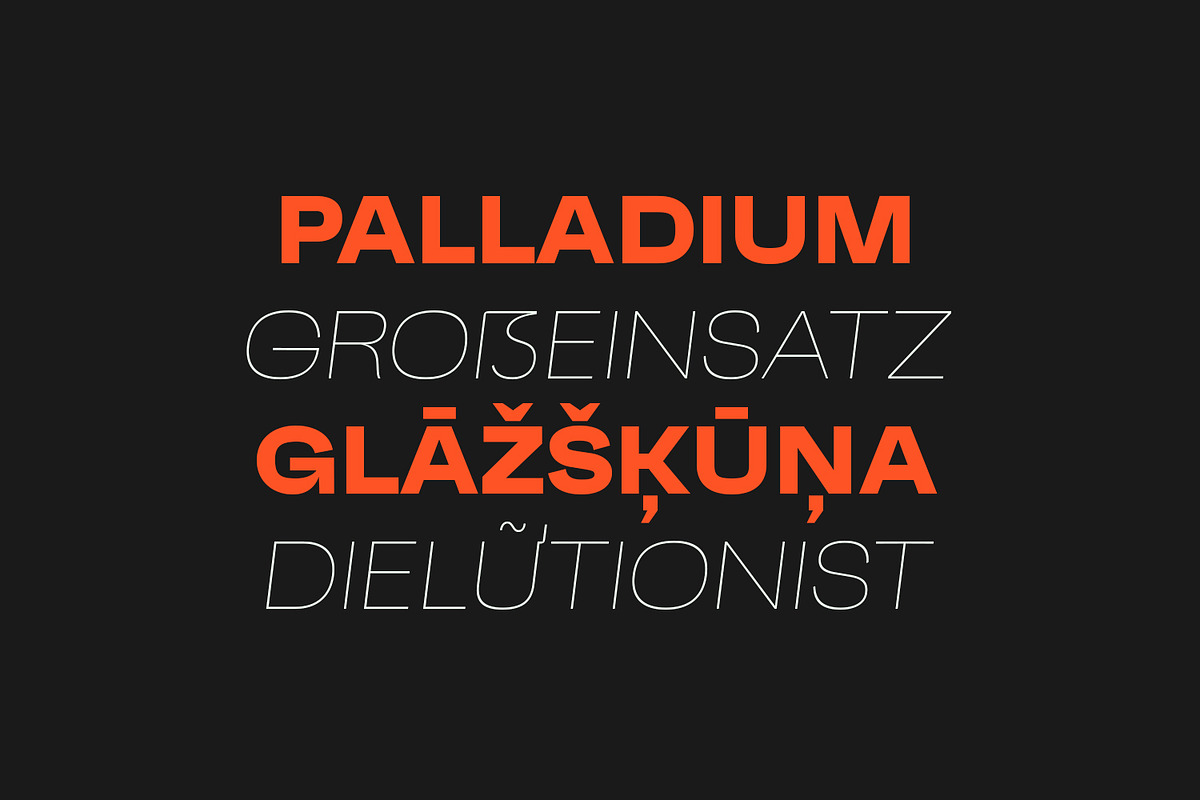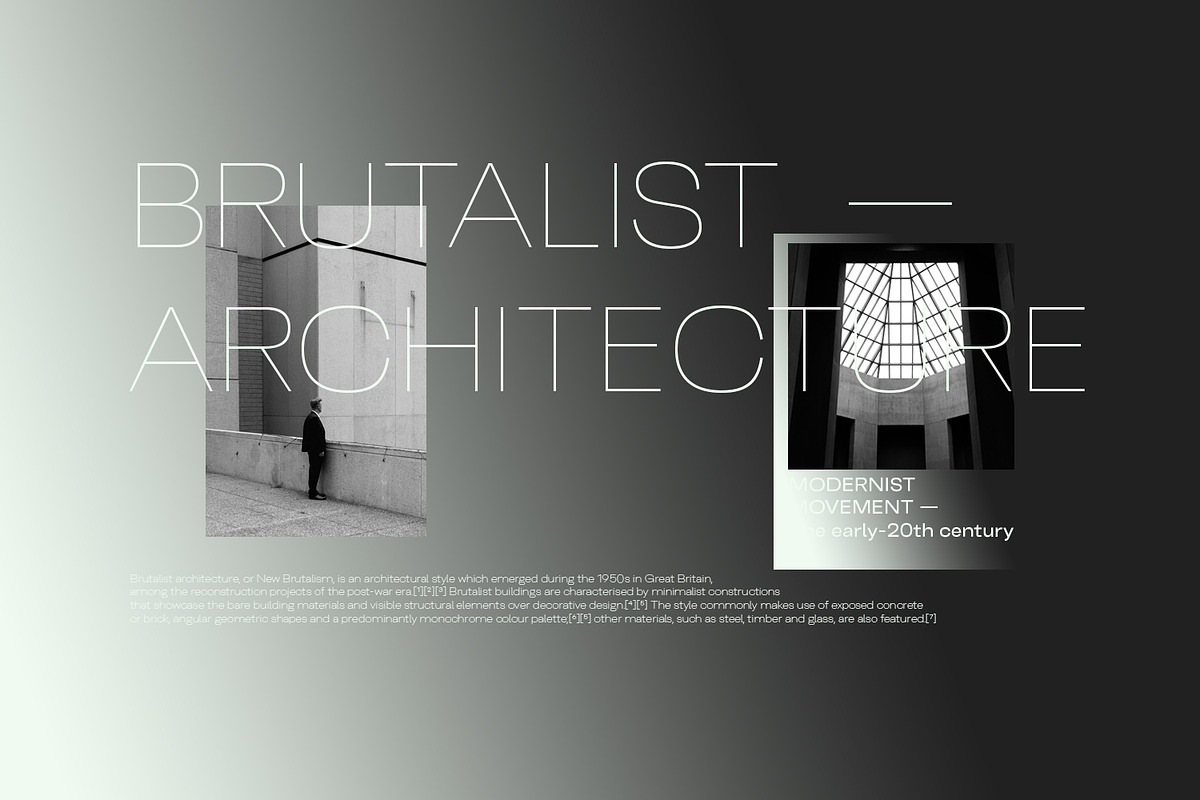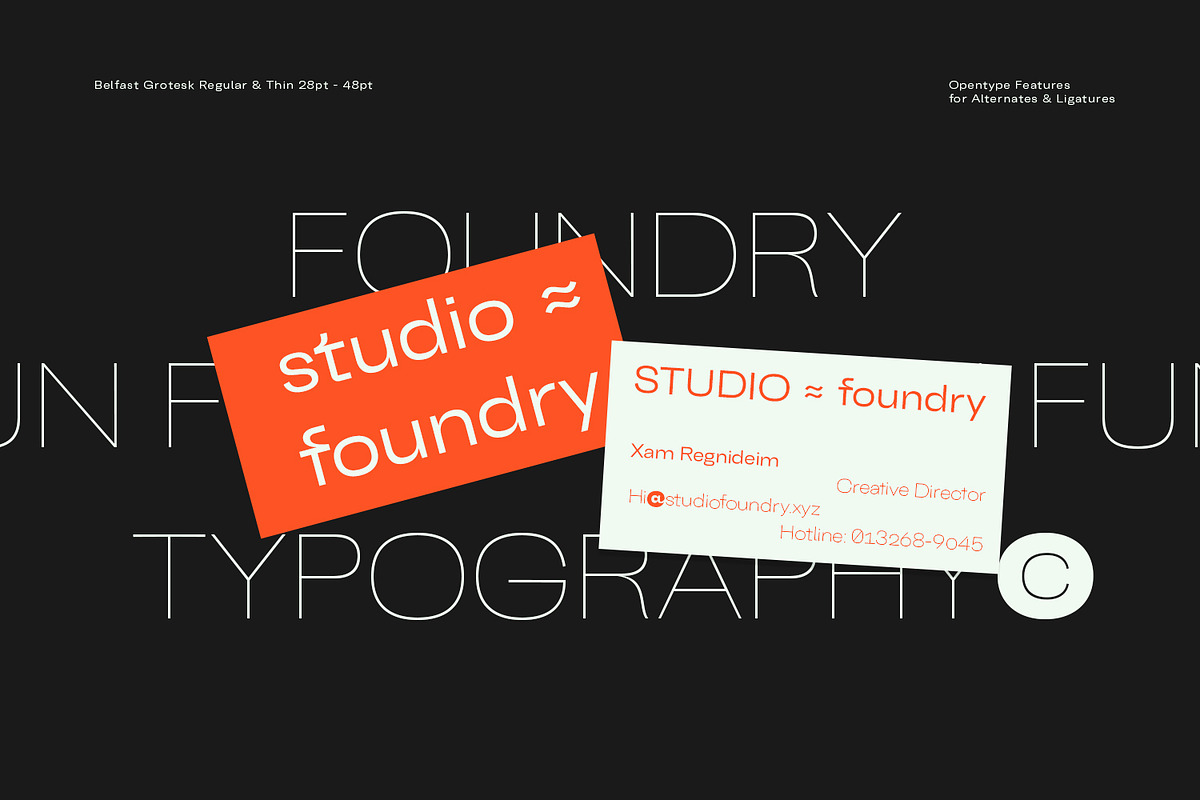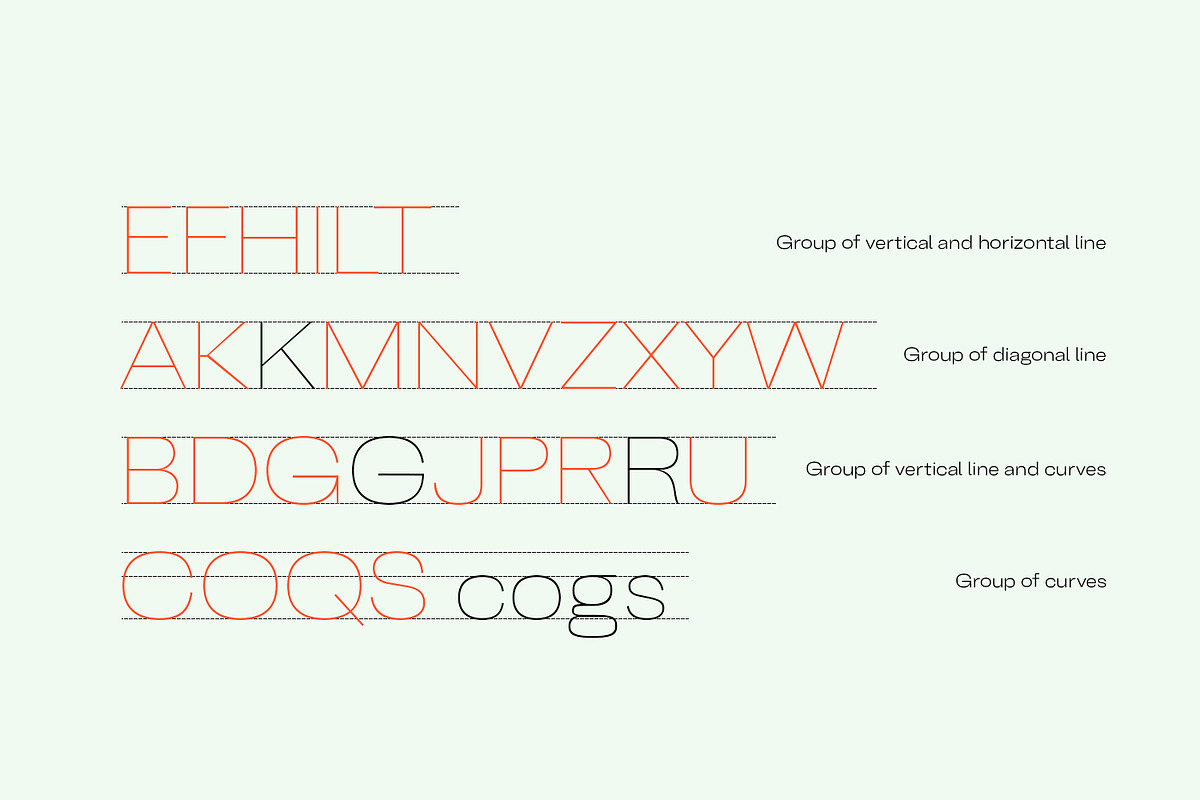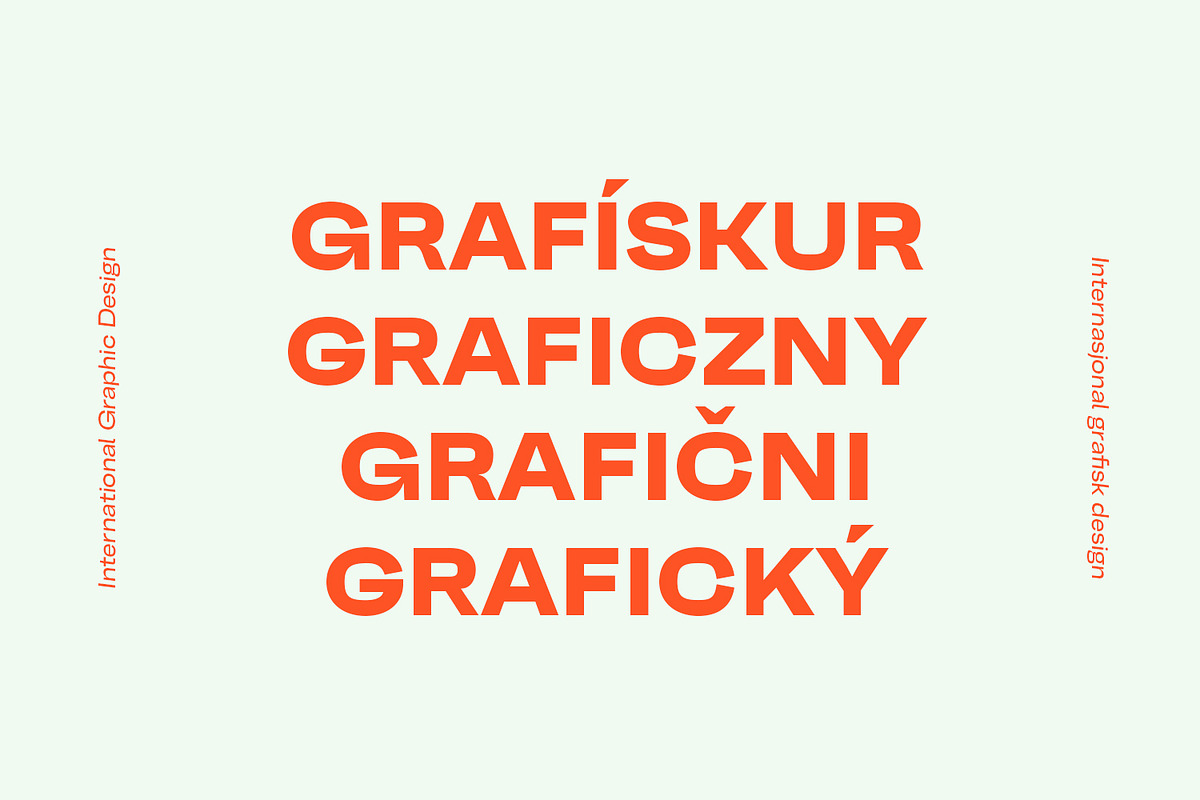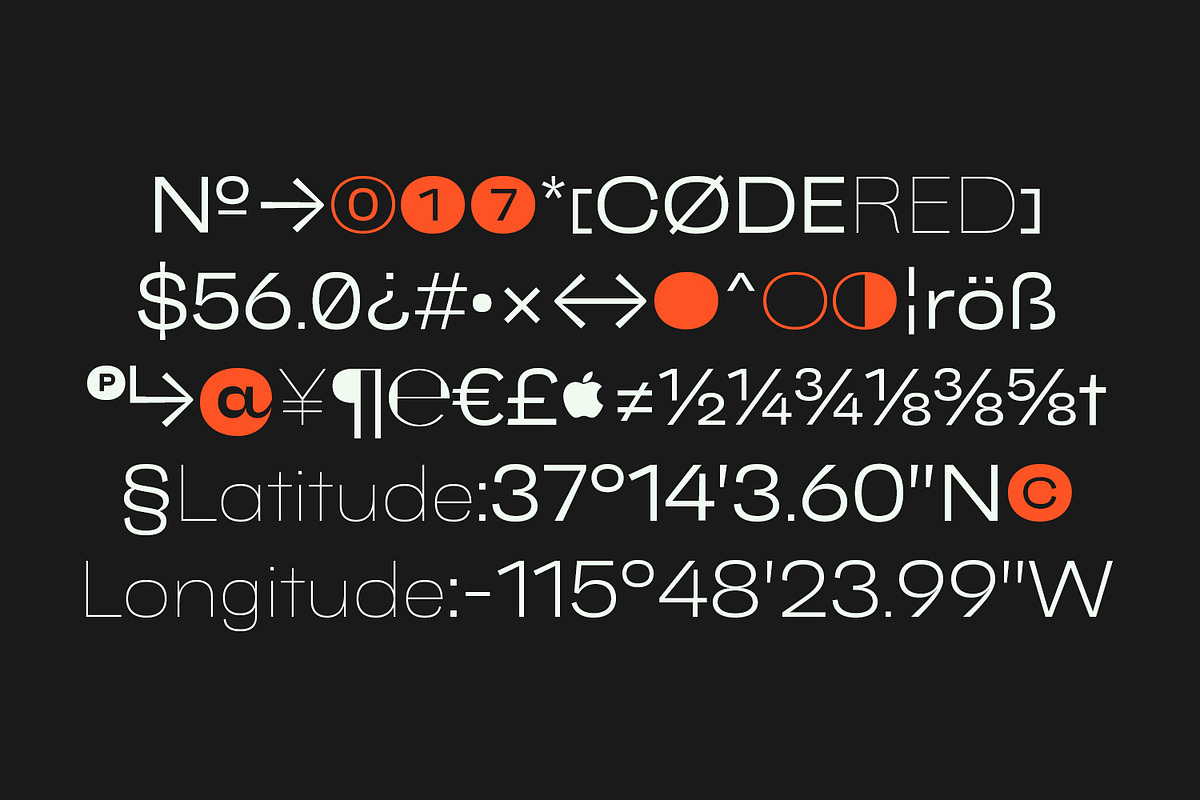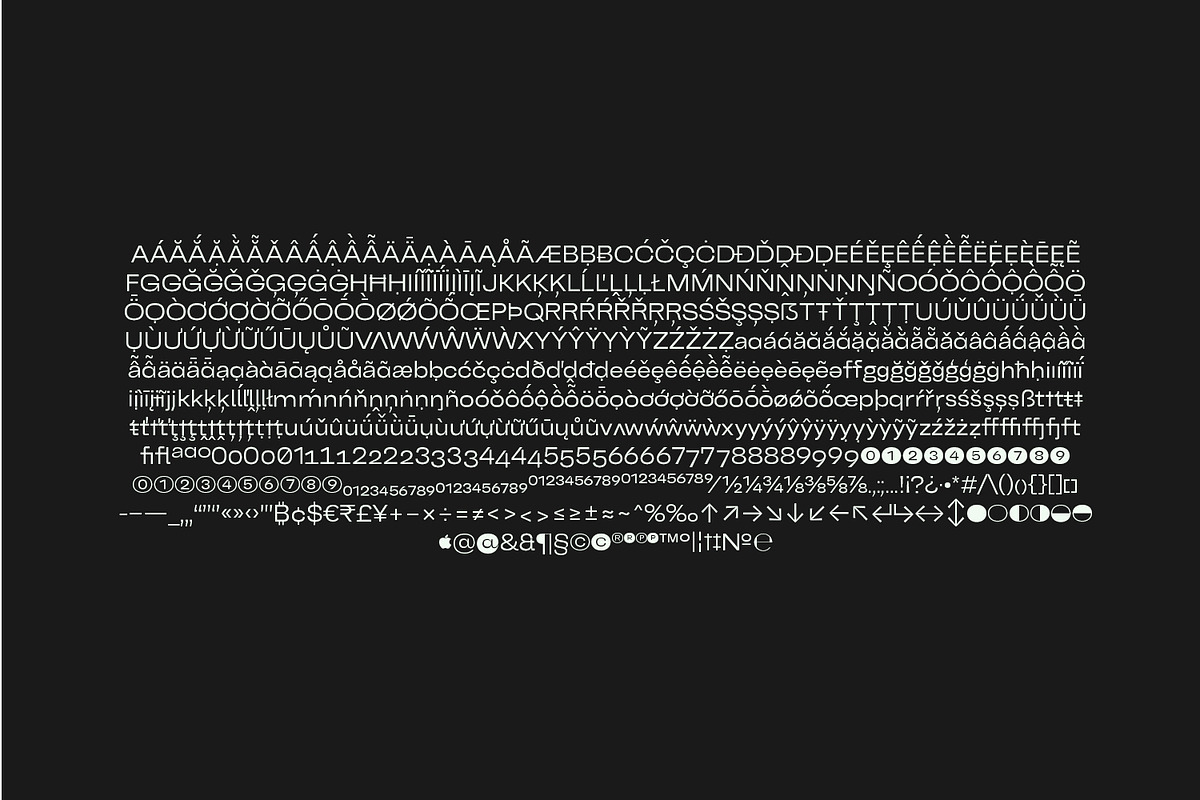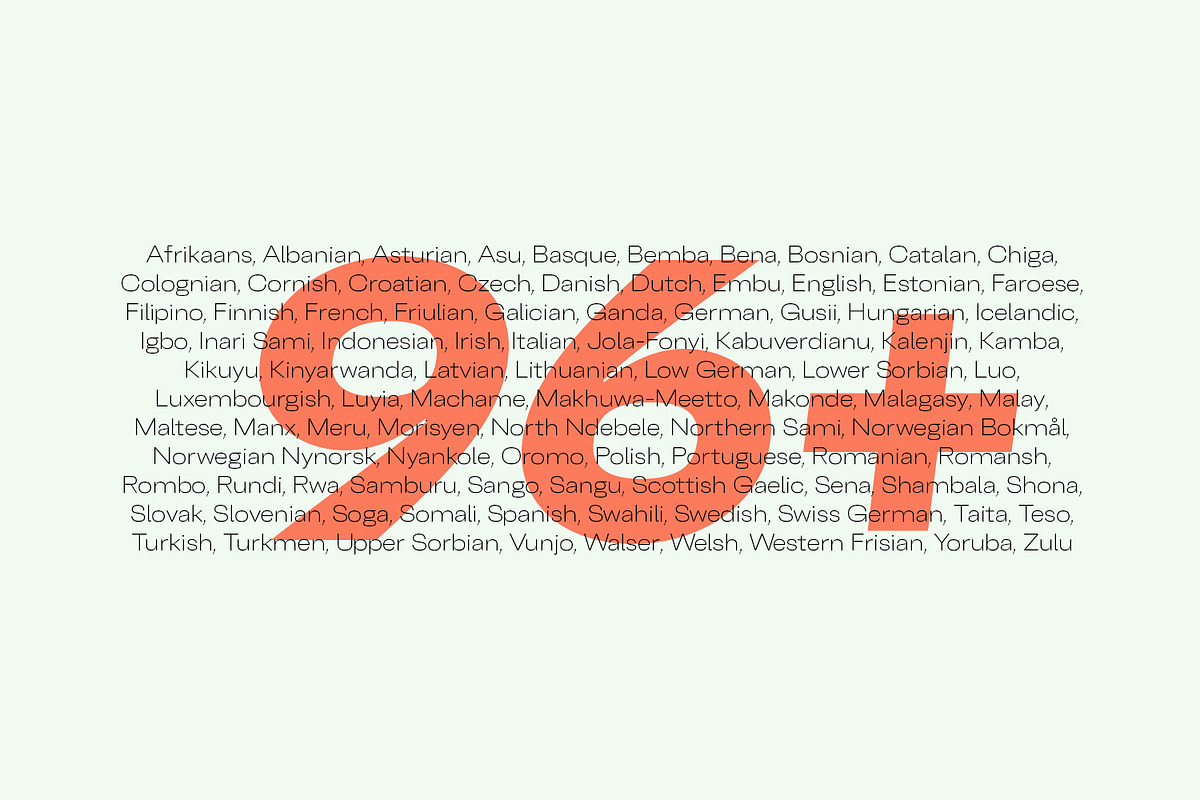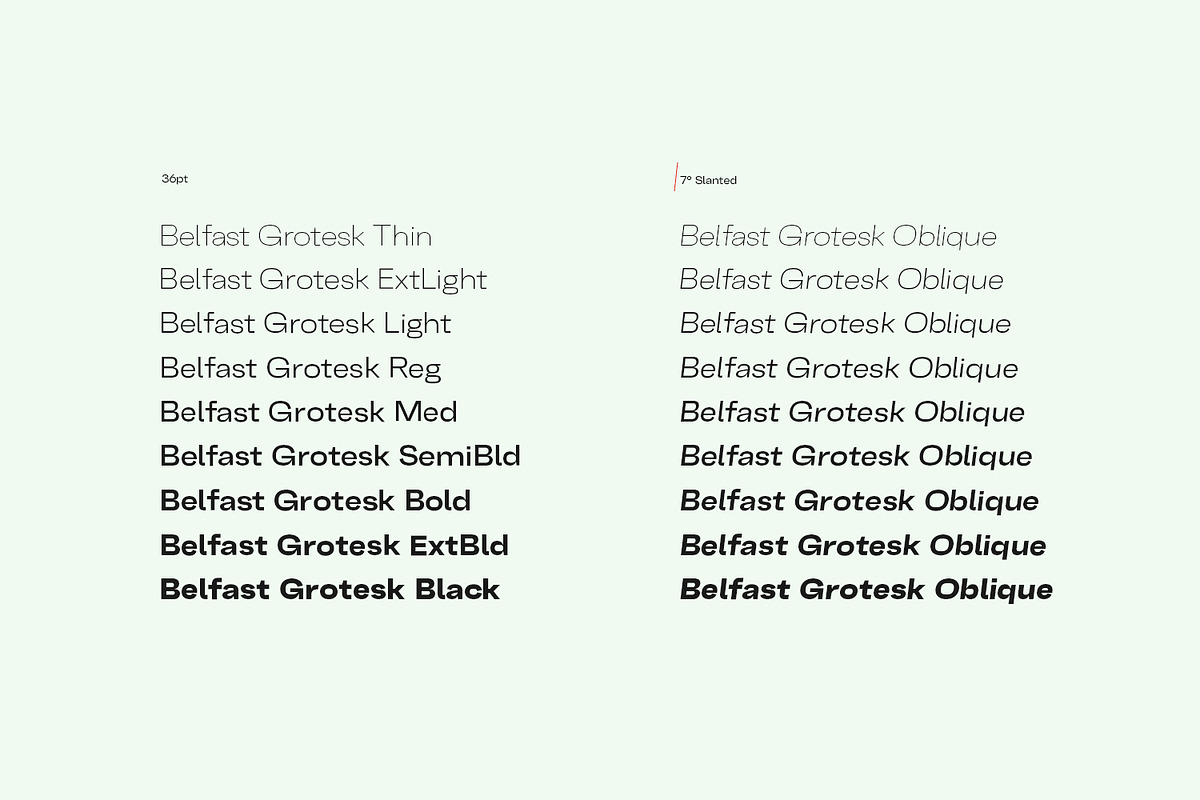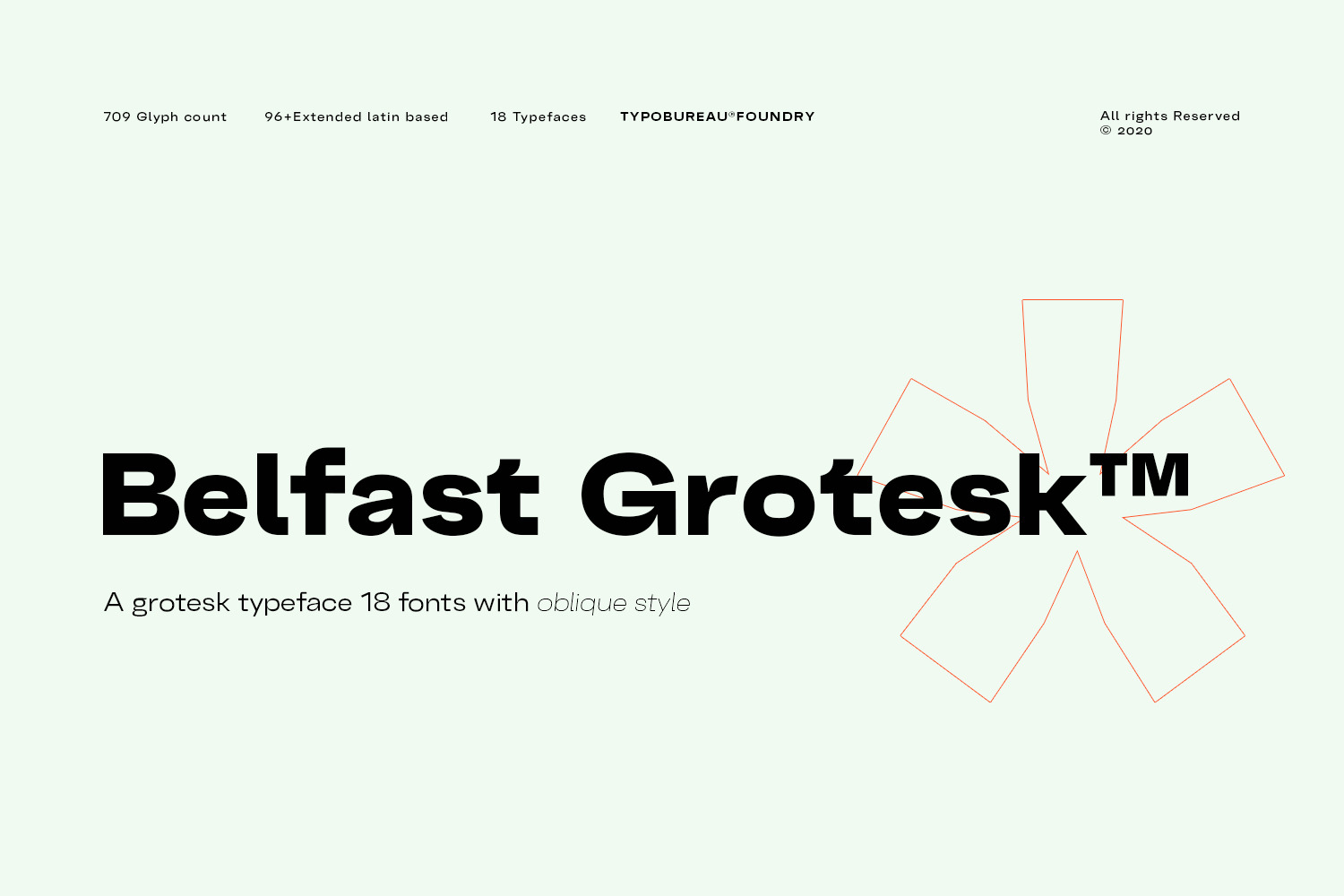
Belfast Grotesk | Grotesque Font
Belfast Grotesk™ 9 weights, 18 uprights and Oblique.
Each typeface contains over 700+ glyphs with latin extensive Western, Central and Eastern European language support, Free updates and feature additions.
Belfast Grotesk™
influenced by the grotesk typefaces developed in the early 20th century. Attempts to follow the best traditions of Grotesk typefaces. A good amount of contrast between the stroke thickness of each weight. Belfast Grotesk™ was developed with unique glyphs to offer best flexibility. An airy metric aids good legibility in short texts.
OPENTYPE FEATURES
Including tabular figures, alternate characters, ligatures, fractions, case-sensitive forms, superscripts, subscripts etc.